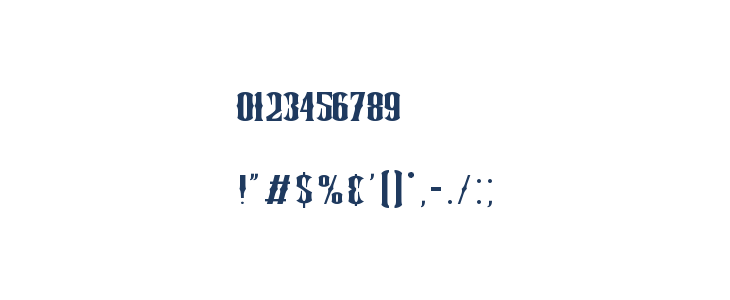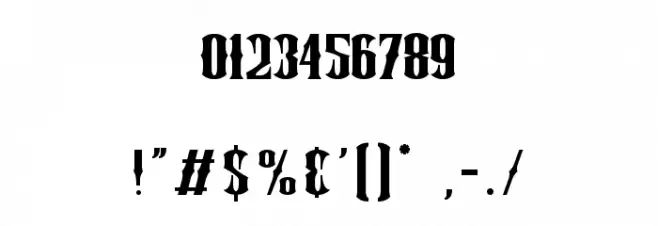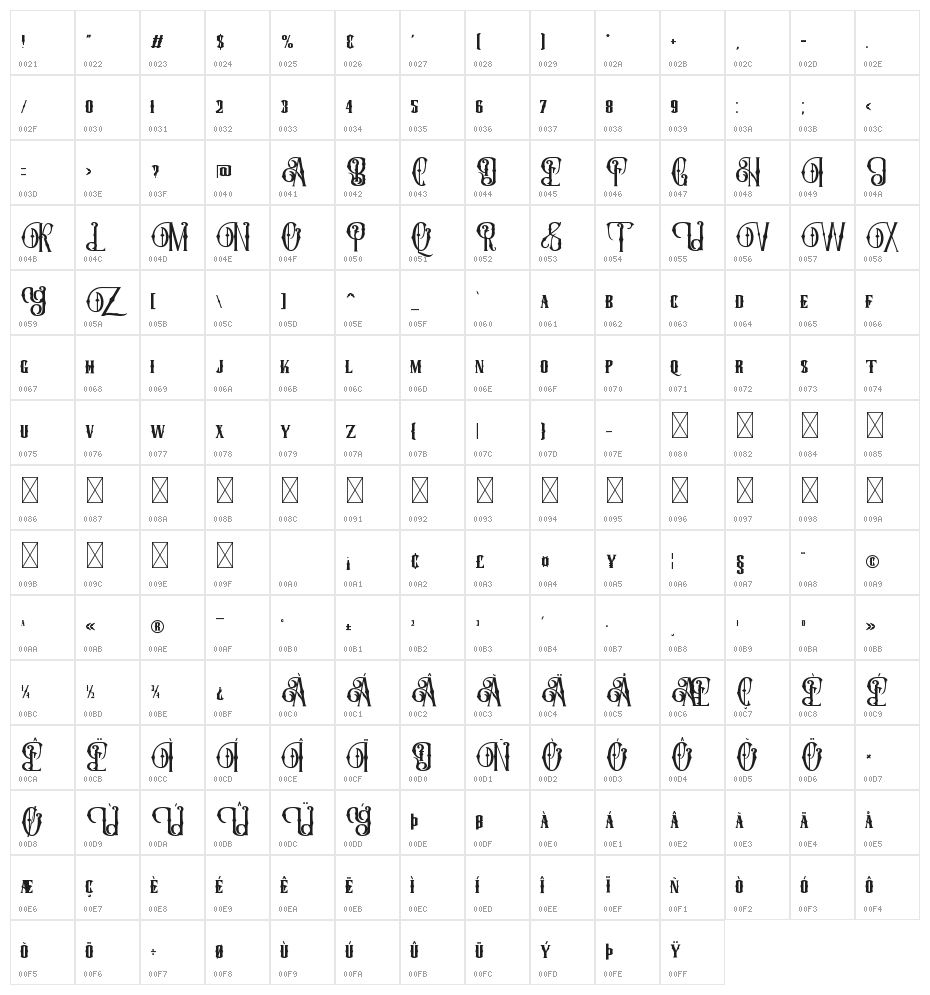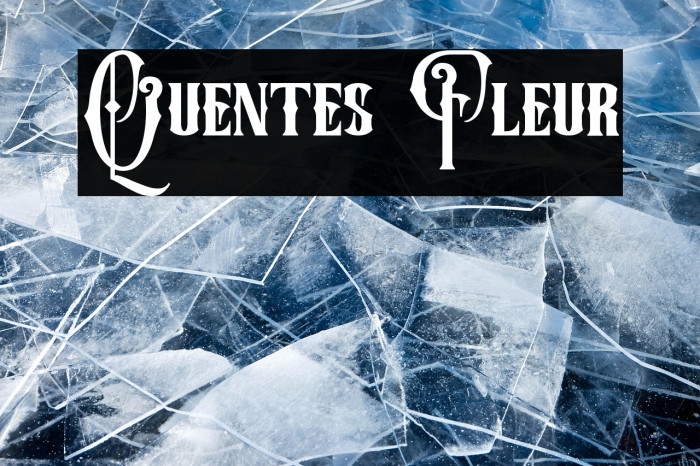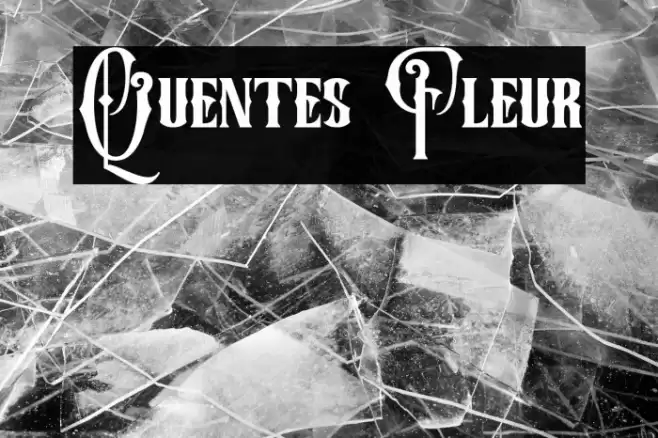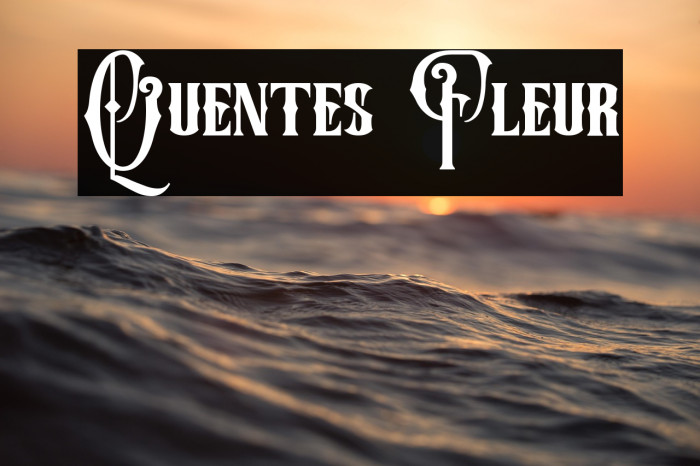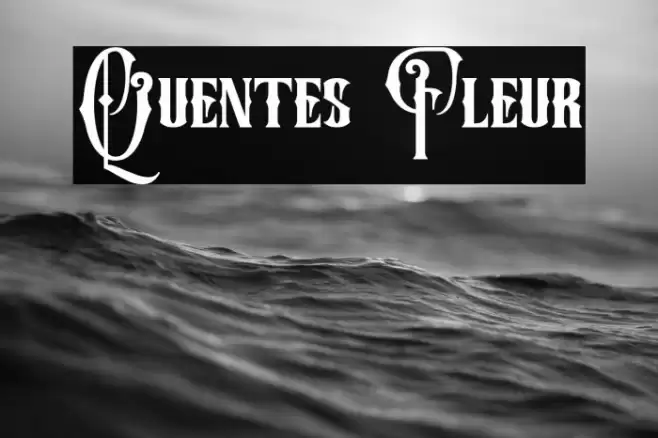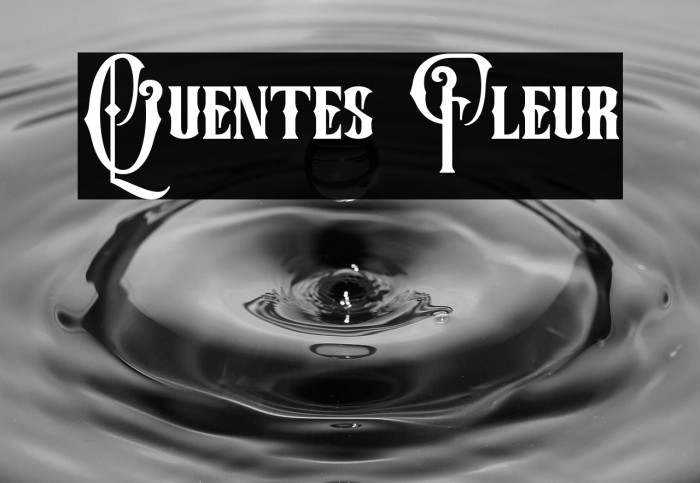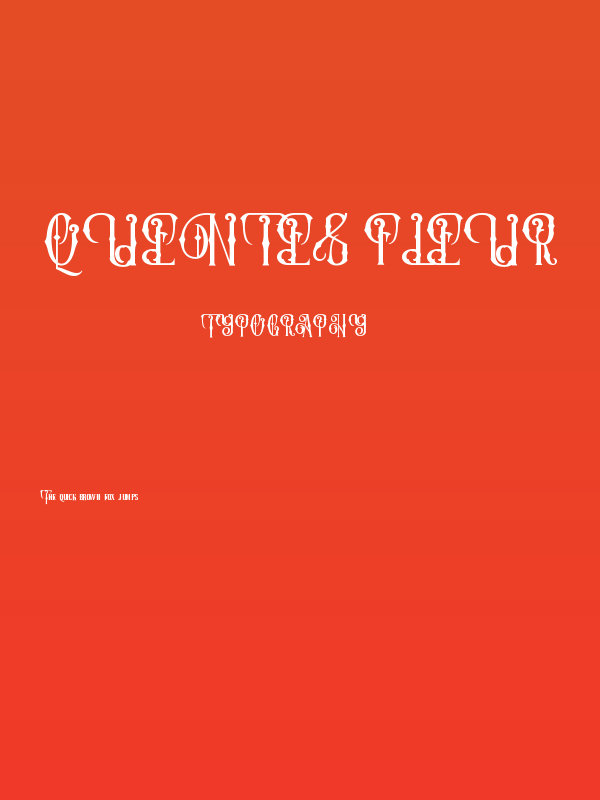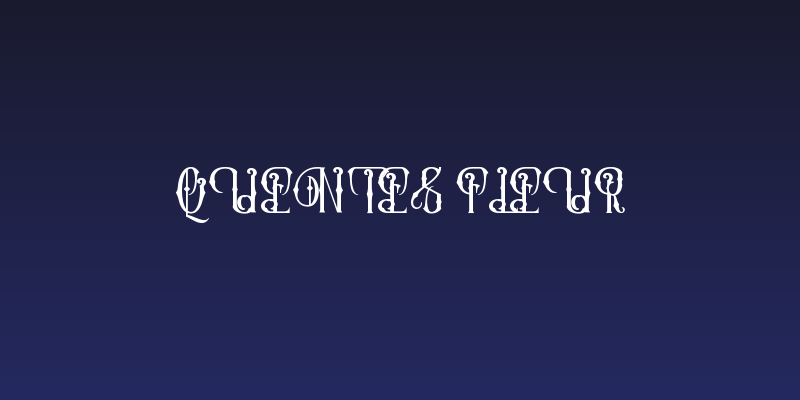
Quentes Fleur Font
Quentes Fleur Description
This font features an ornate and decorative style with intricate details that give it a unique and artistic flair. The uppercase letters are particularly elaborate, with swirling embellishments that add a sense of elegance and sophistication. The lowercase letters maintain a consistent style, though they are slightly less ornate than their uppercase counterparts. The numbers and special characters are designed to match the overall aesthetic, ensuring a cohesive look across all elements. This font is ideal for projects that require a touch of luxury and creativity, such as invitations, branding, or artistic displays.